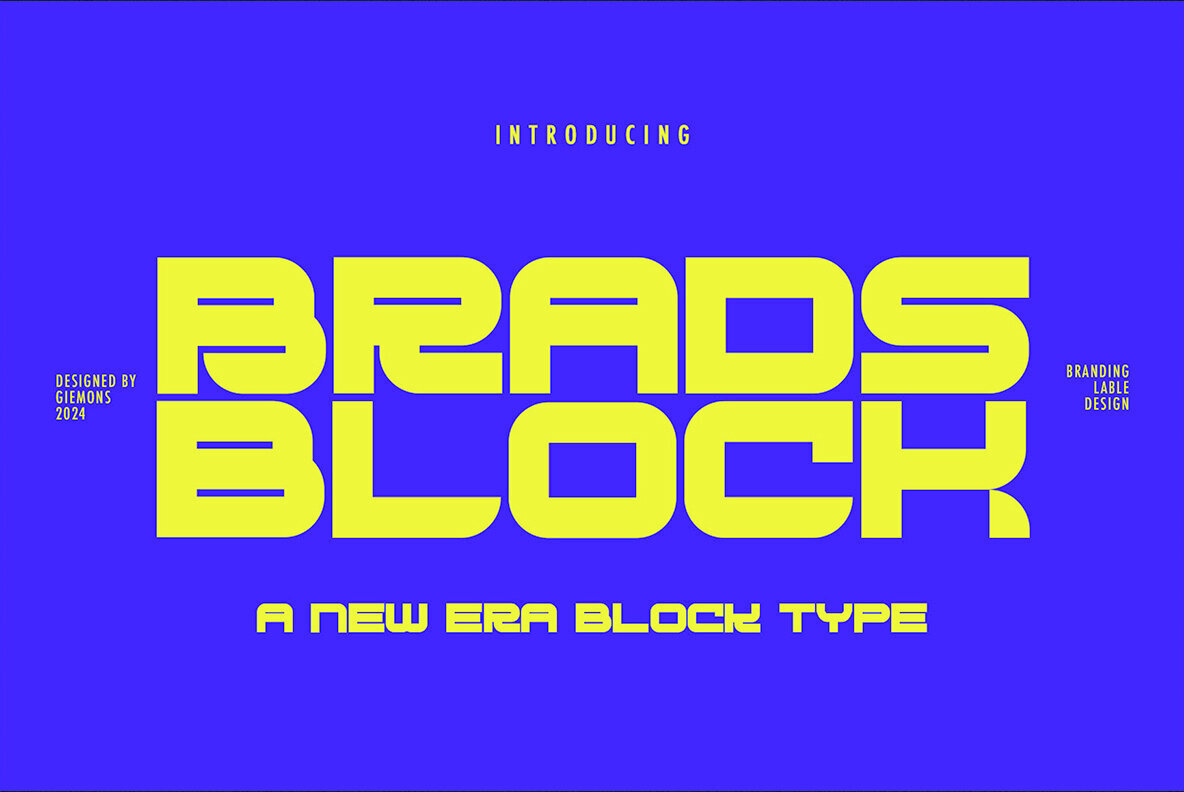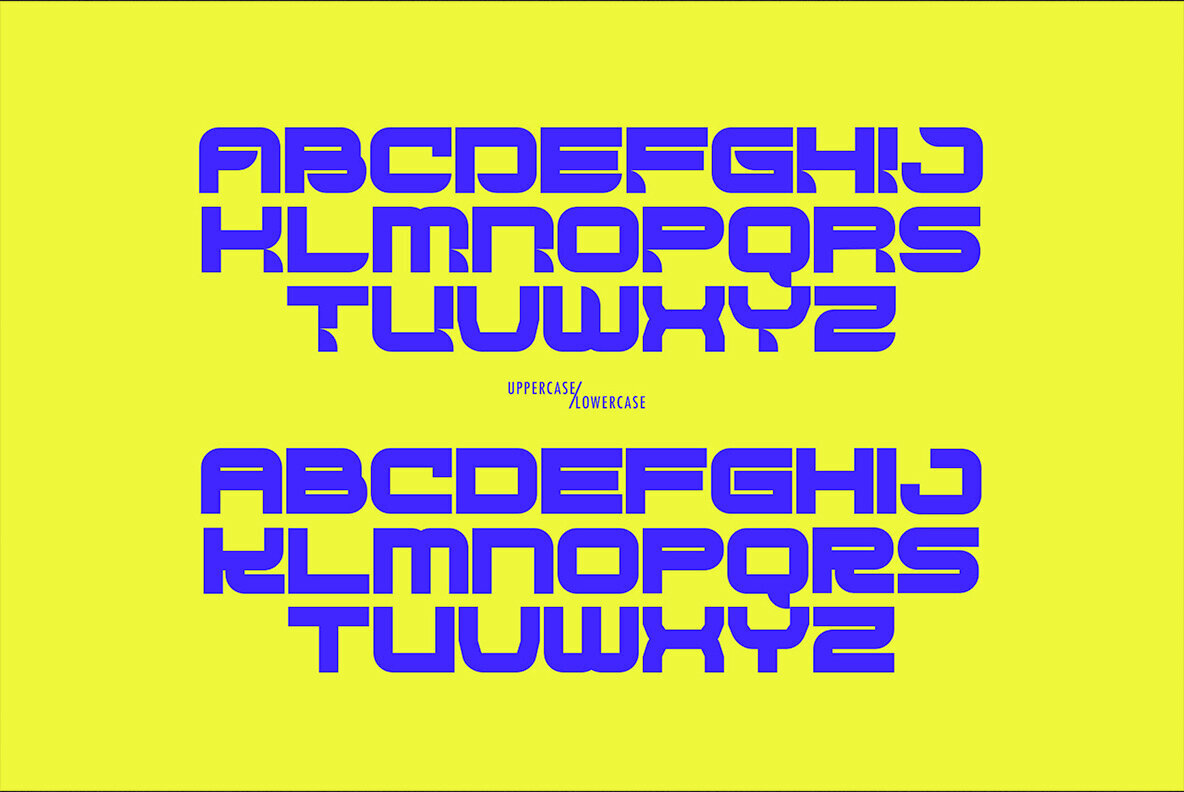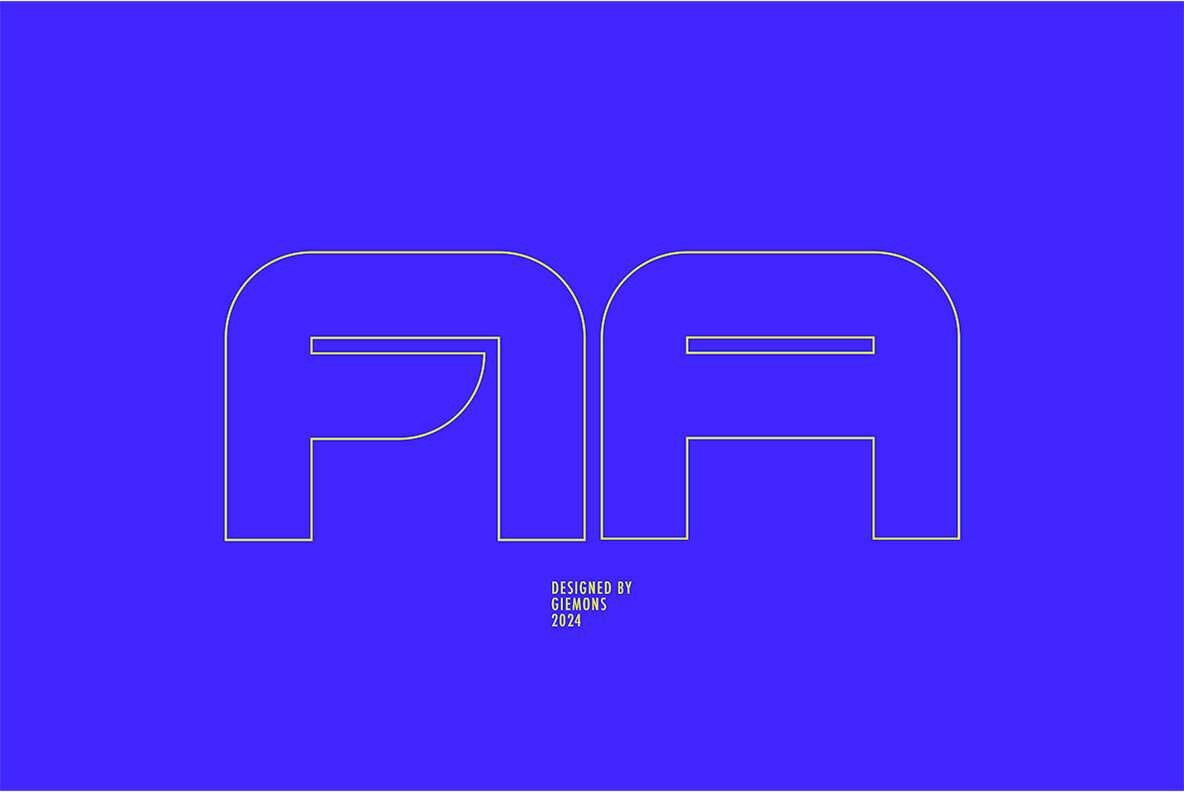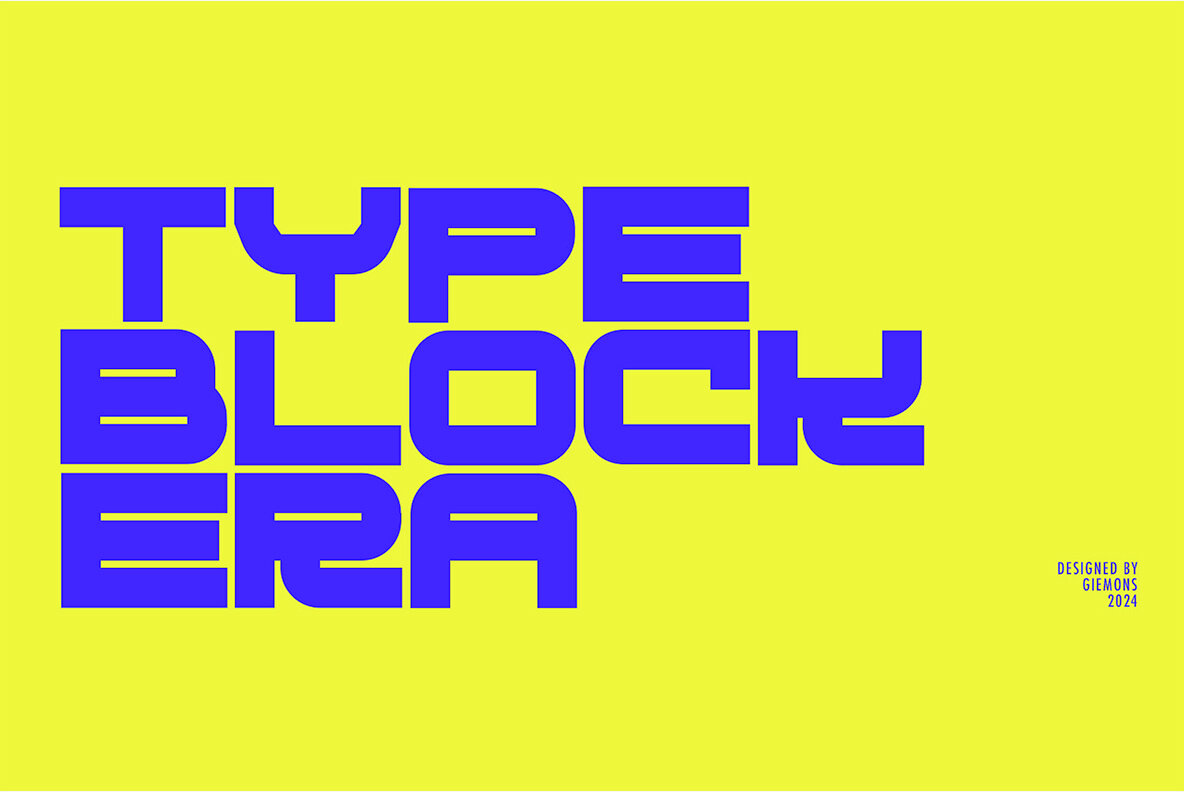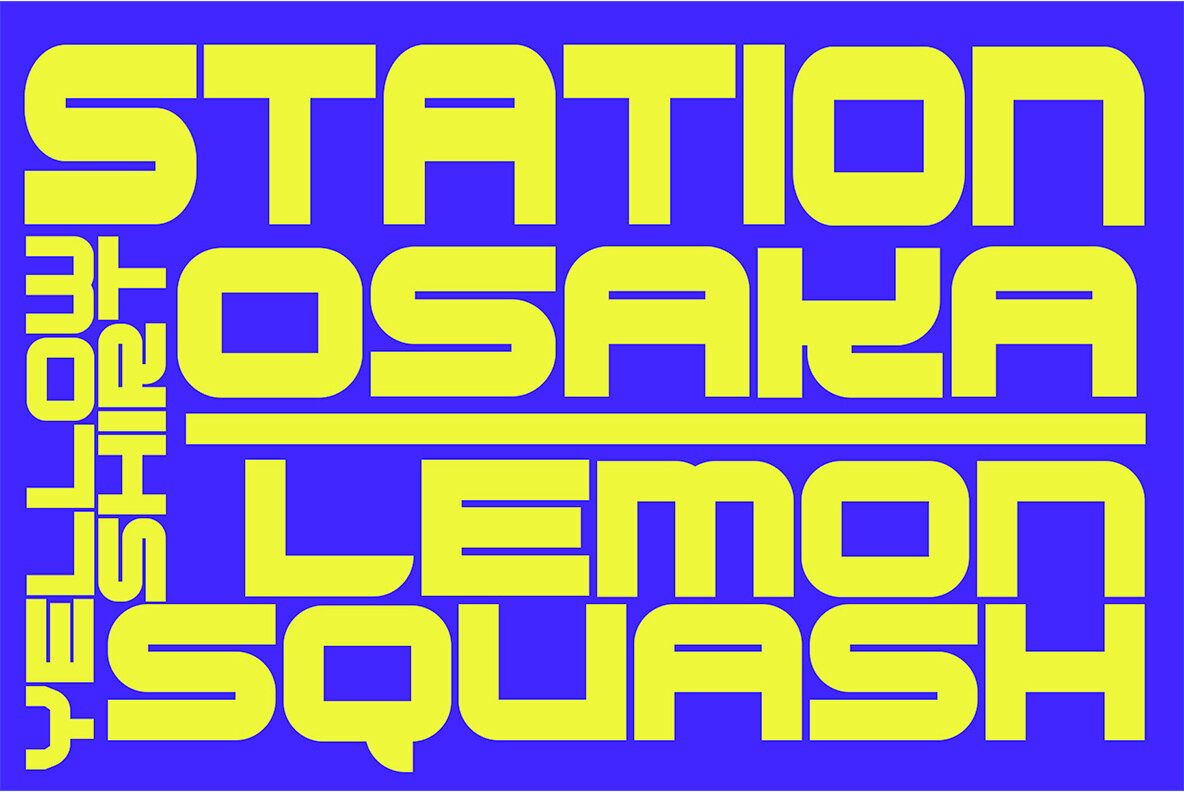
Brads Block Font
Brads Block is a cutting-edge block typeface designed for the modern era, offering a futuristic aesthetic ideal for creating impressive posters, branding materials, t-shirts, and social media graphics. Its bold and sleek design ensures your project stands out with a unique visual appeal.
This typeface includes both uppercase and lowercase letters, allowing for versatile designs that can adapt to a variety of styles and settings. Additionally, Brads Block supports multiple languages, making it a versatile choice for a global audience. Whether you're working on digital content or print media, this typeface is an excellent choice for designers looking to add a contemporary edge to their work.